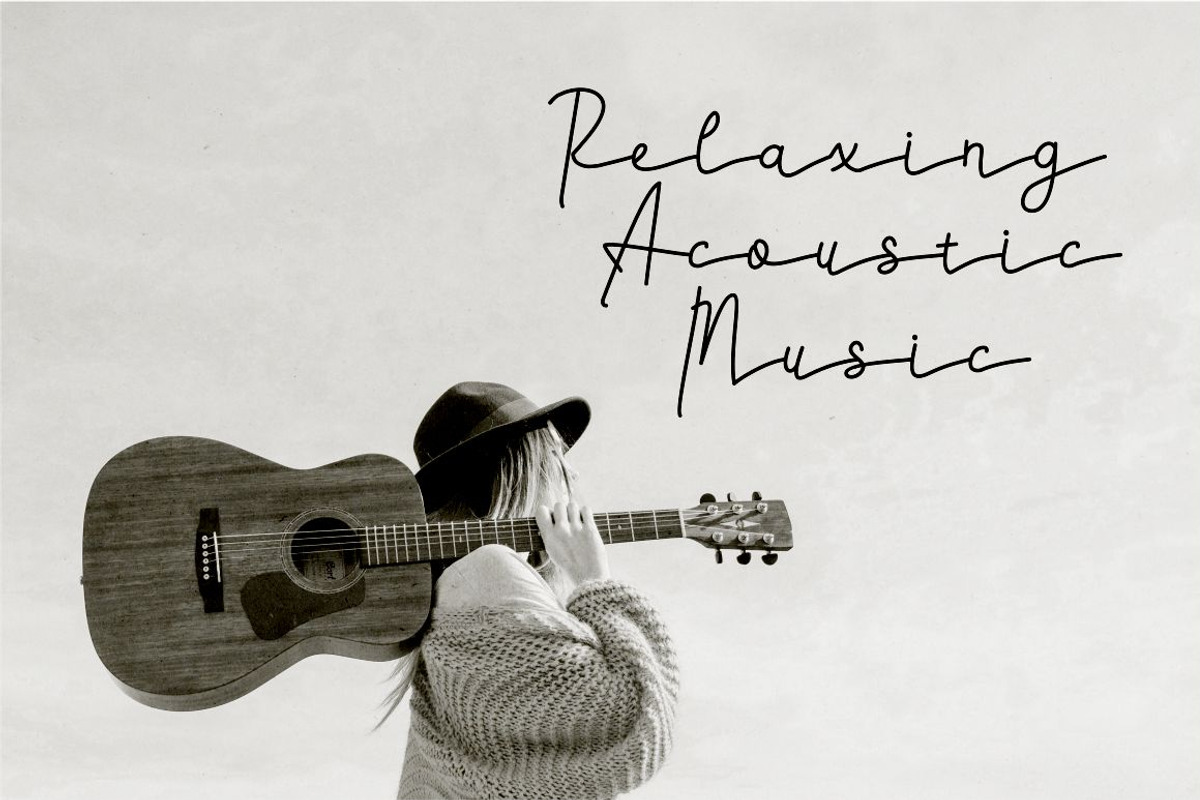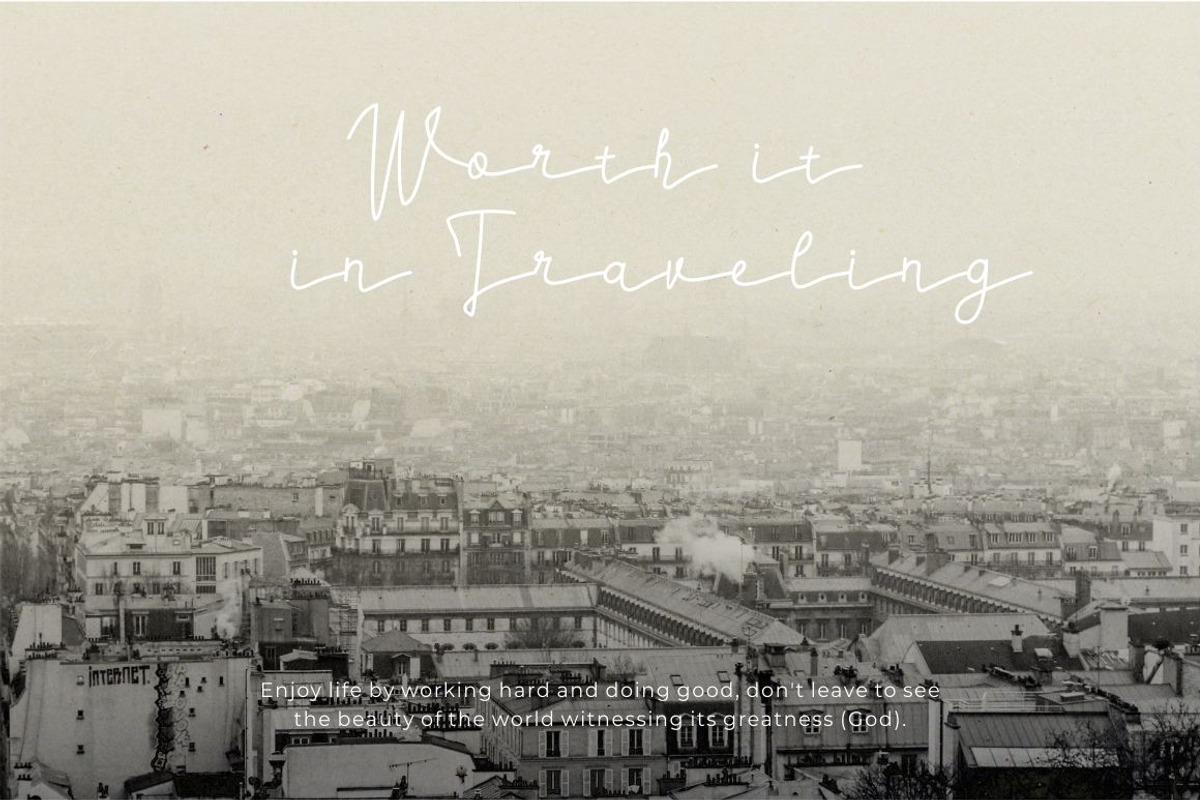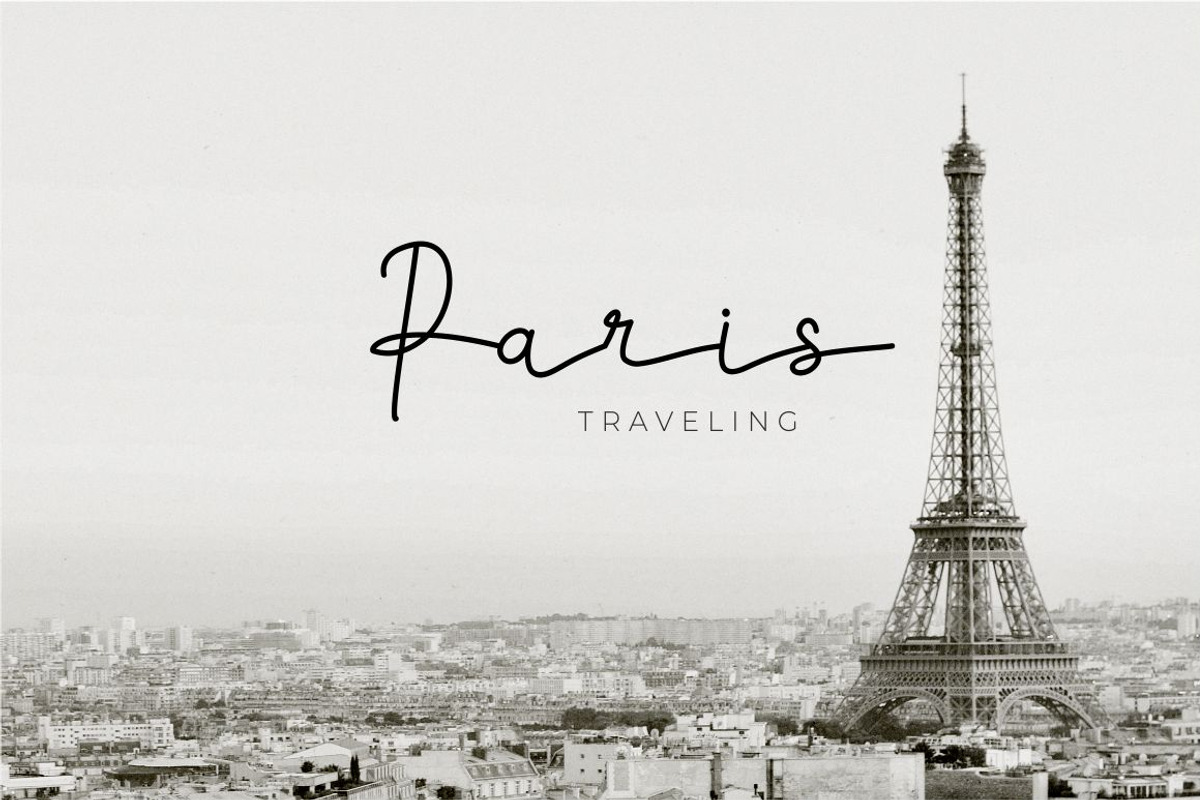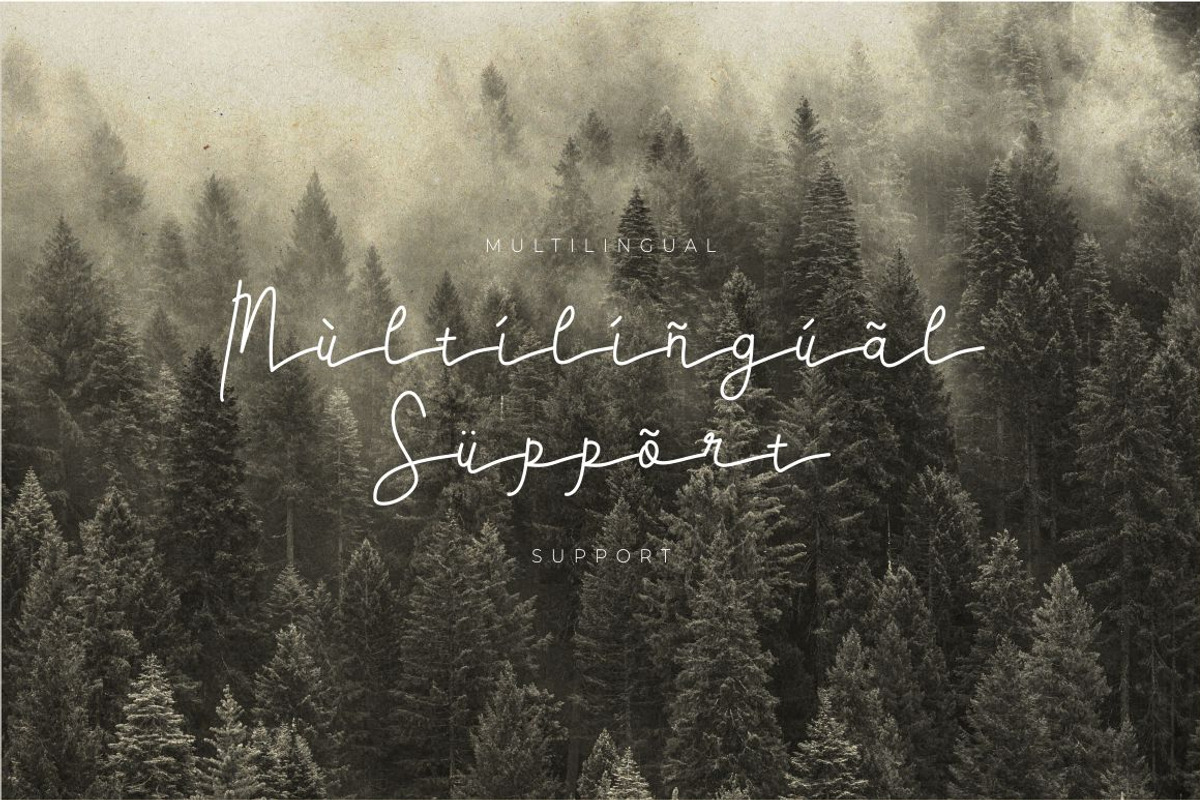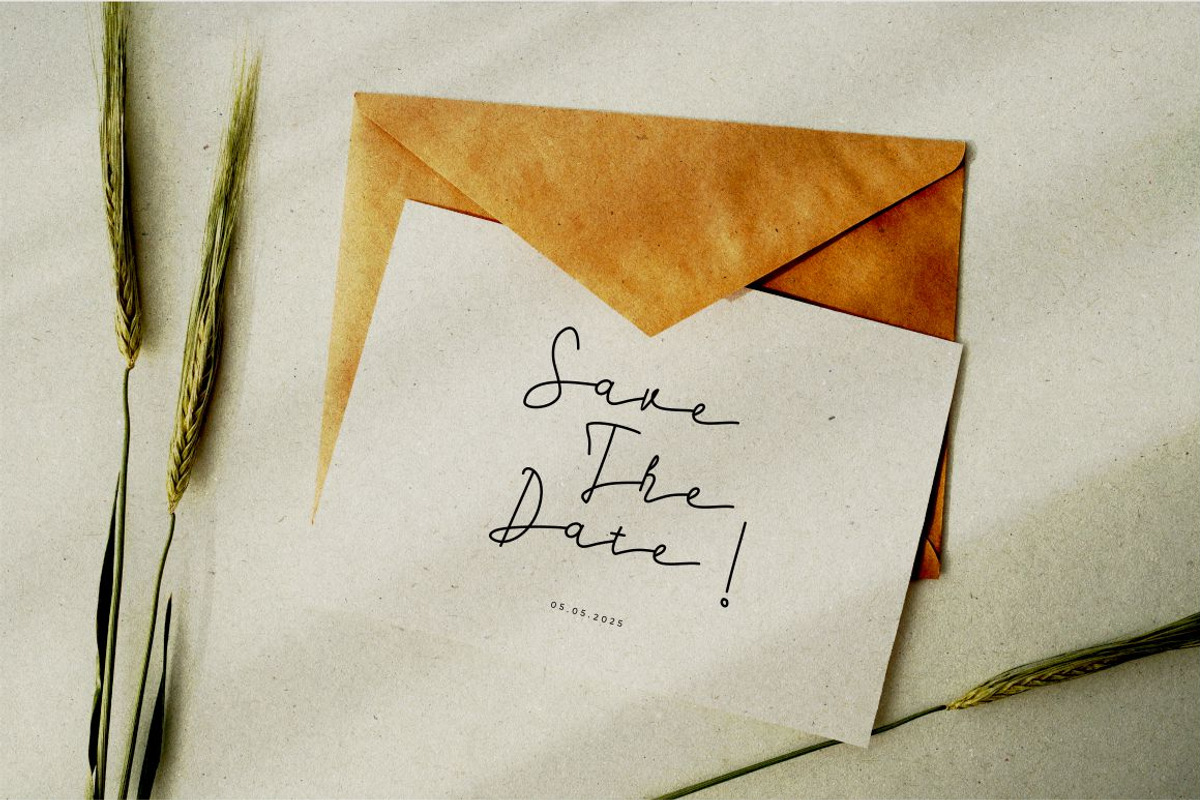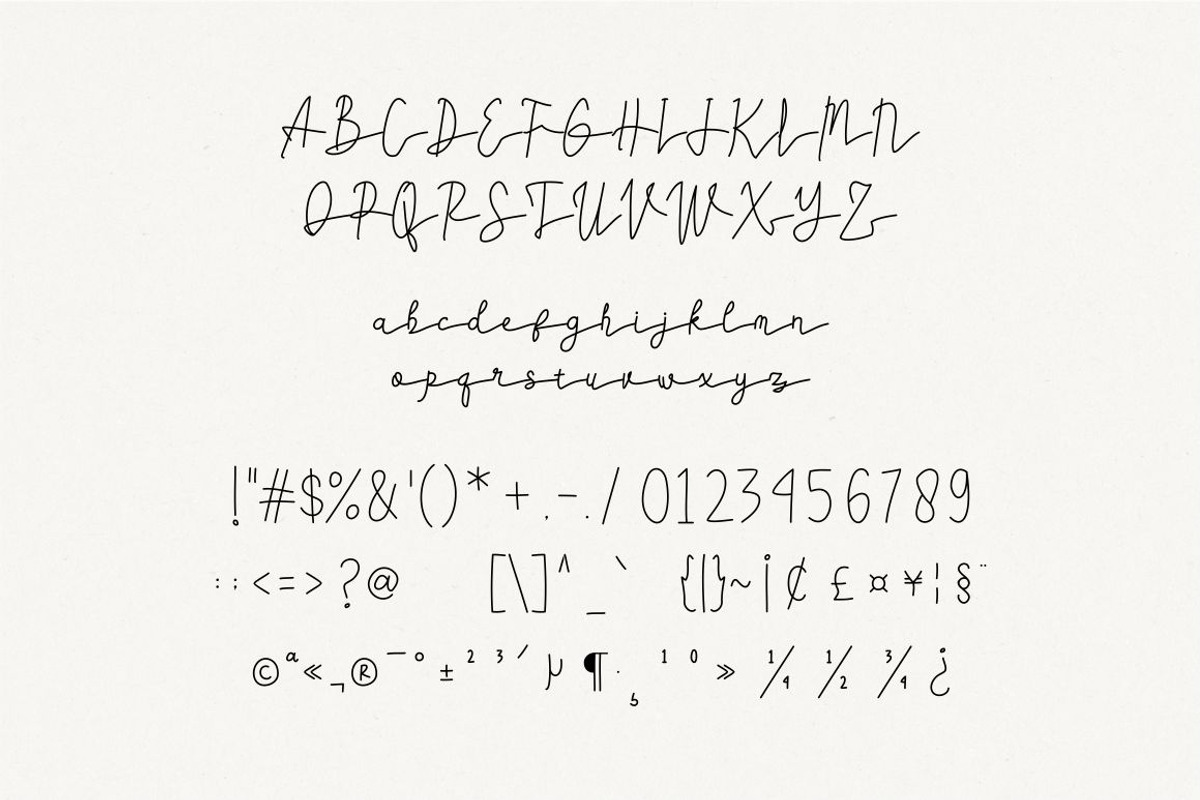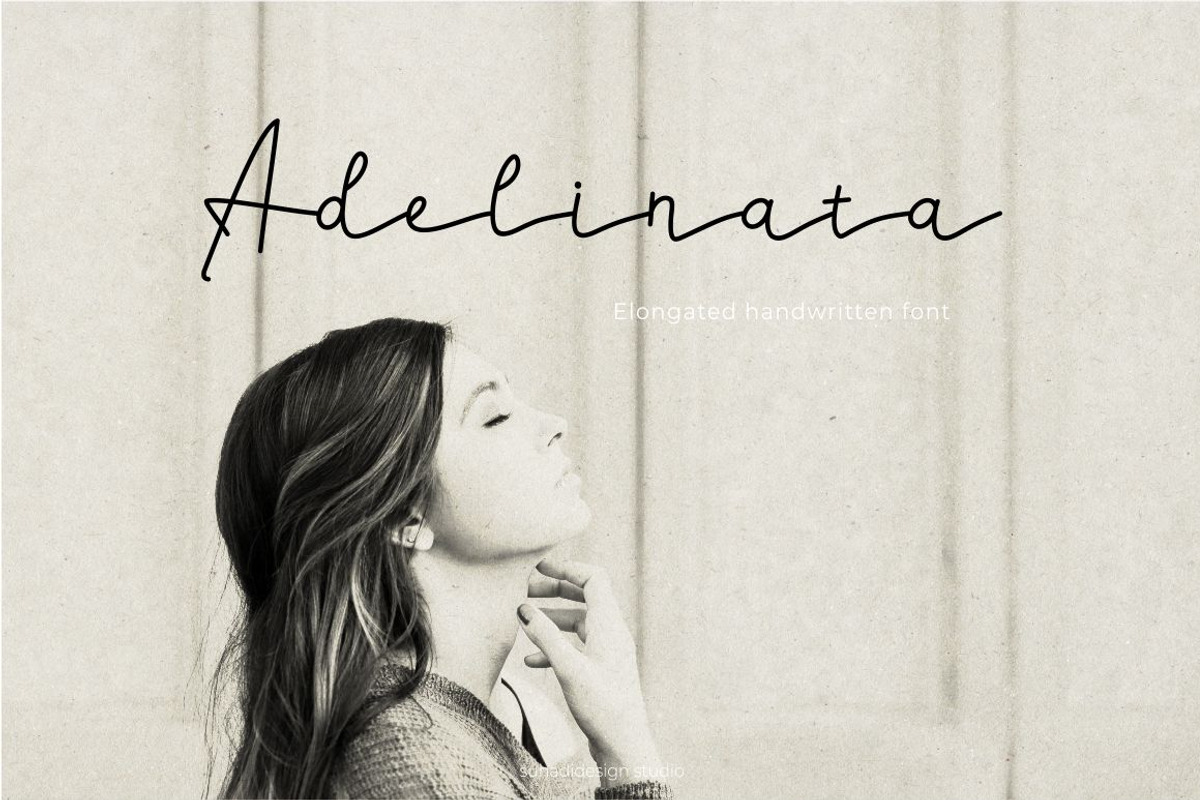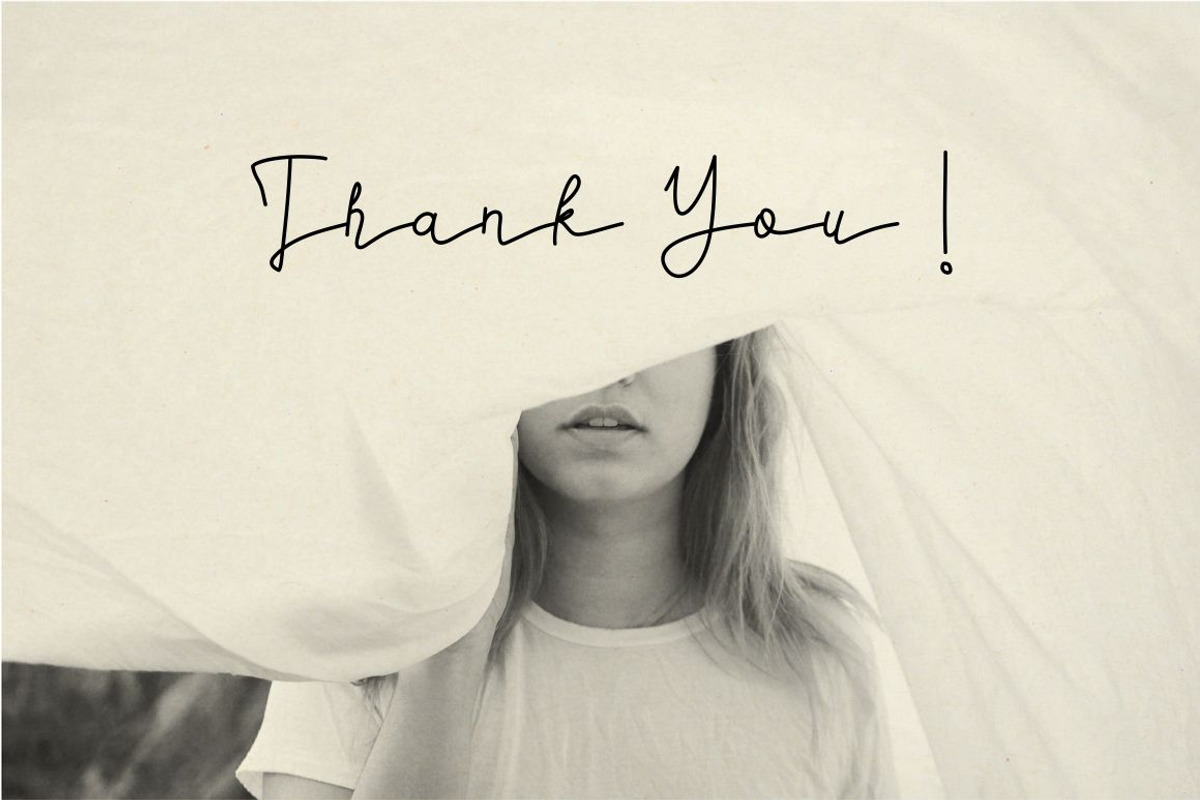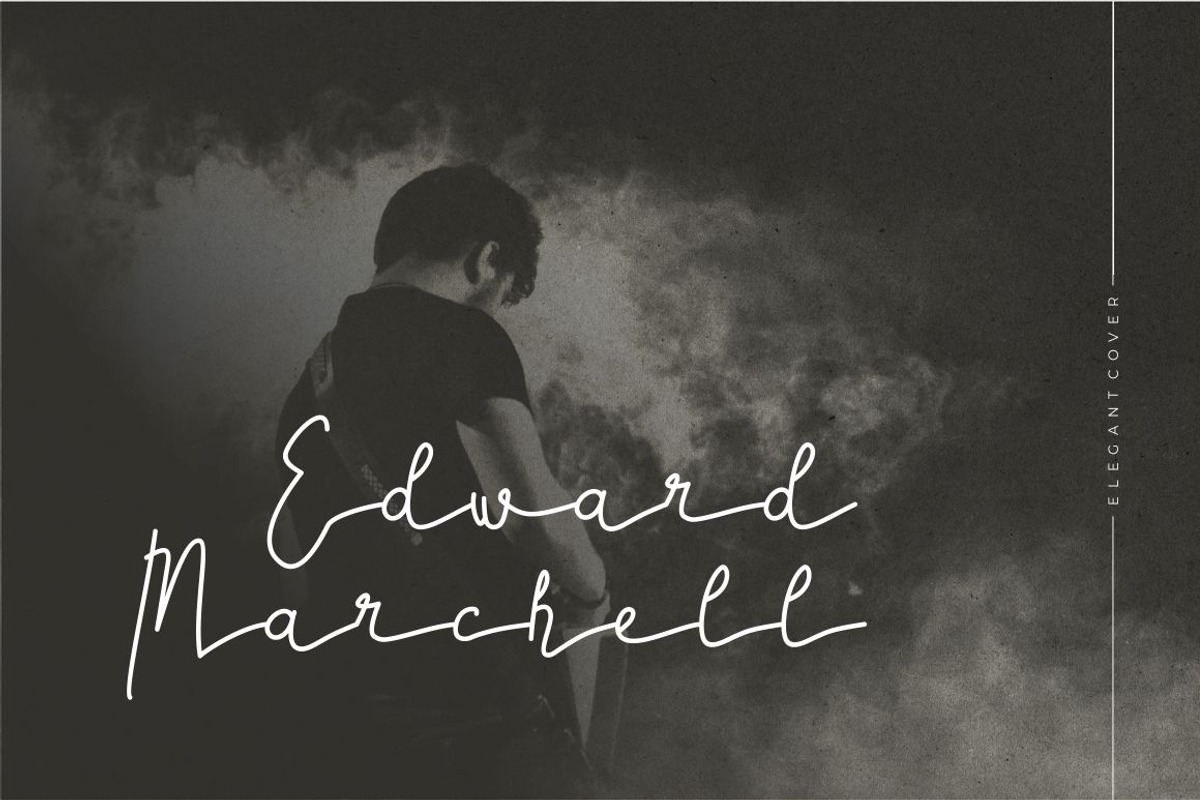
Adelinata script handwritten font
Hi Ladies and Gentlemen! According to the market demand, the font is more inclined to the signature font, so I decided to make this signature font in your view. Adelinata font is a slightly elongated, simple and very popular different font, comes with a modern style hoping to be accepted by the market. We keep this font looking elegant, classy, easy to read, stylish, attractive and easy to use. Adelinata Font is a great choice for photography, wedding invitation, watermark, social media posts, advertisements, logos, branding, invitation, cover, label, wedding designs, photo watermarks, and many other design projects. The Adelinata is here to take your work to the next level.
• Uppercase • Lowercase • Multilingual Support • Numeral and punctuation